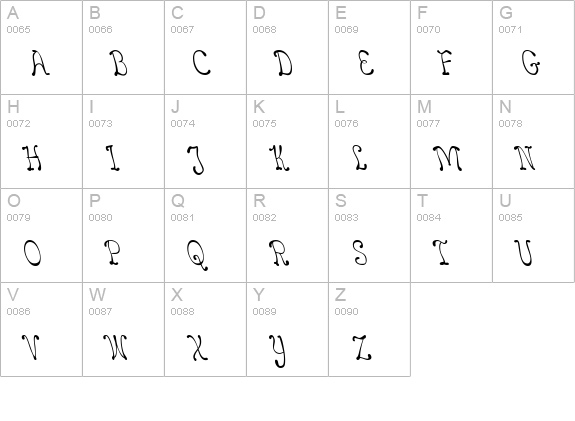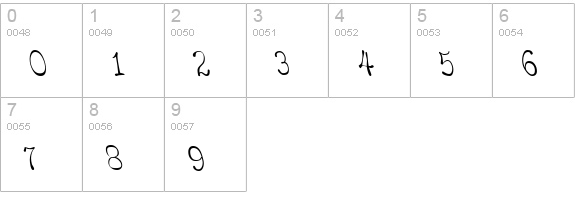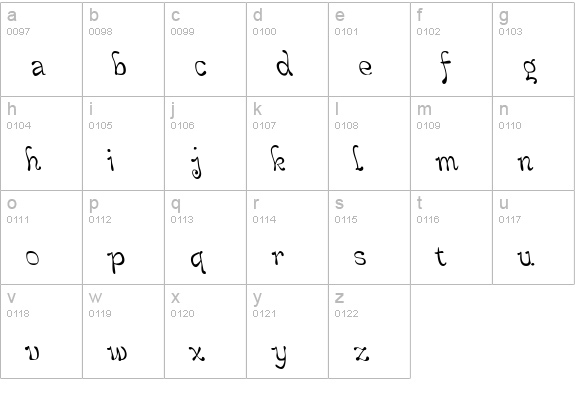
LeakorLeachLeft Font Details
Introducing the captivating LeakorLeachLeft font, a true masterpiece of typographic artistry. With its unique blend of elegance and playfulness, this font is sure to make a lasting impression on any design project. LeakorLeachLeft is a versatile typeface that excels in both headline and body text, offering a harmonious balance between legibility and visual impact. Its carefully crafted letterforms effortlessly capture attention, making it perfect for a wide range of applications such as branding, advertising, editorial design, and more. This font's distinct personality is characterized by its delicate curves, sharp edges, and subtle variations in stroke width. Each letter is meticulously designed to evoke a sense of modern sophistication, while still maintaining a touch of whimsy and charm. But what truly sets LeakorLeachLeft apart is its availability as a free download at FontsMarket.com. Yes, you read that right! This extraordinary font can be freely obtained, allowing designers and enthusiasts alike to unleash their creativity without any financial constraints. FontsMarket.com's dedication to providing high-quality free fonts ensures that everyone can access and enjoy the beauty of LeakorLeachLeft. So why wait? Enhance your designs with the enchanting allure of LeakorLeachLeft font. Download it now from FontsMarket.com and let your imagination take flight. Experience the power of free, and watch as your designs come to life with this remarkable and captivating typeface.